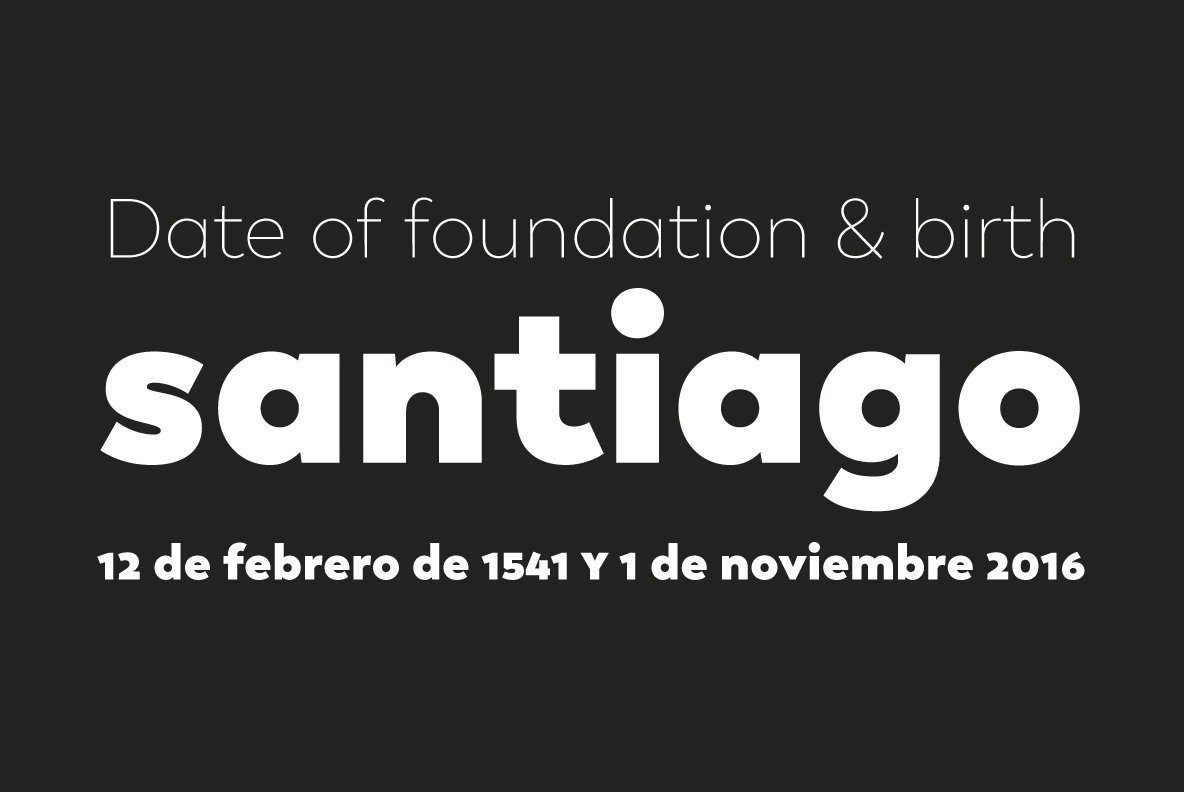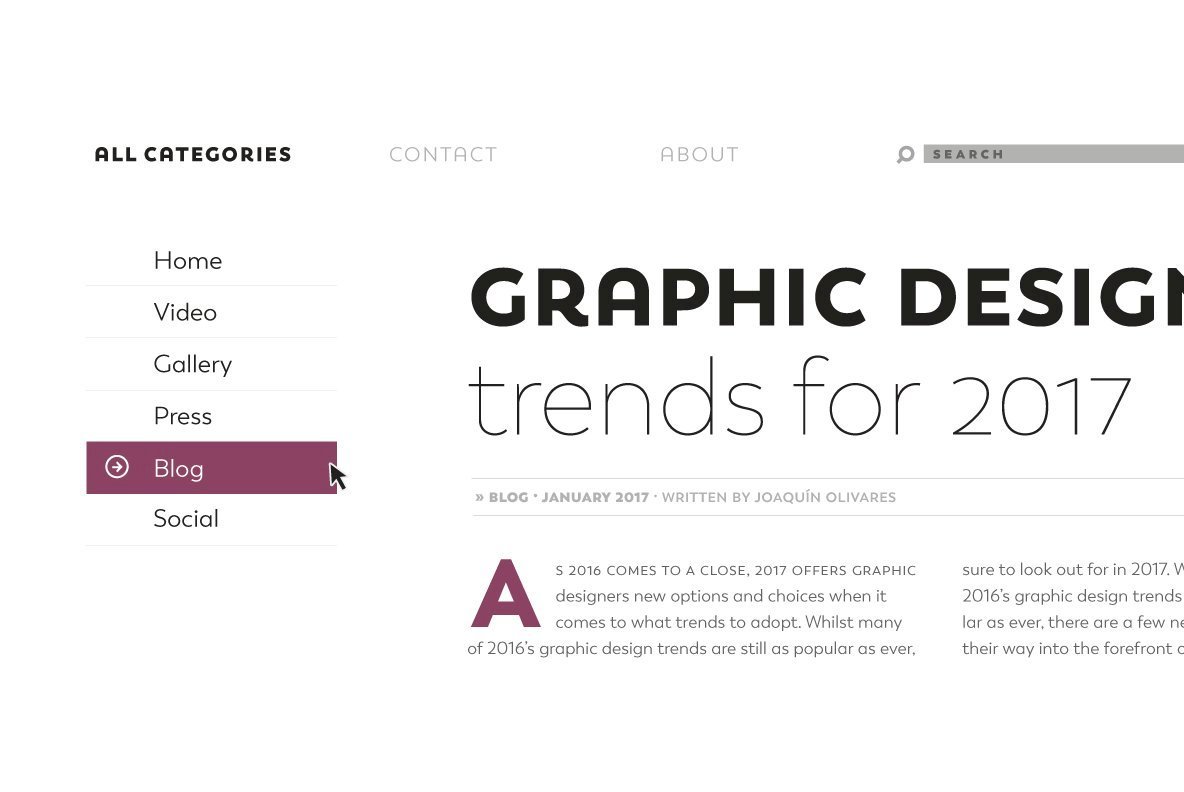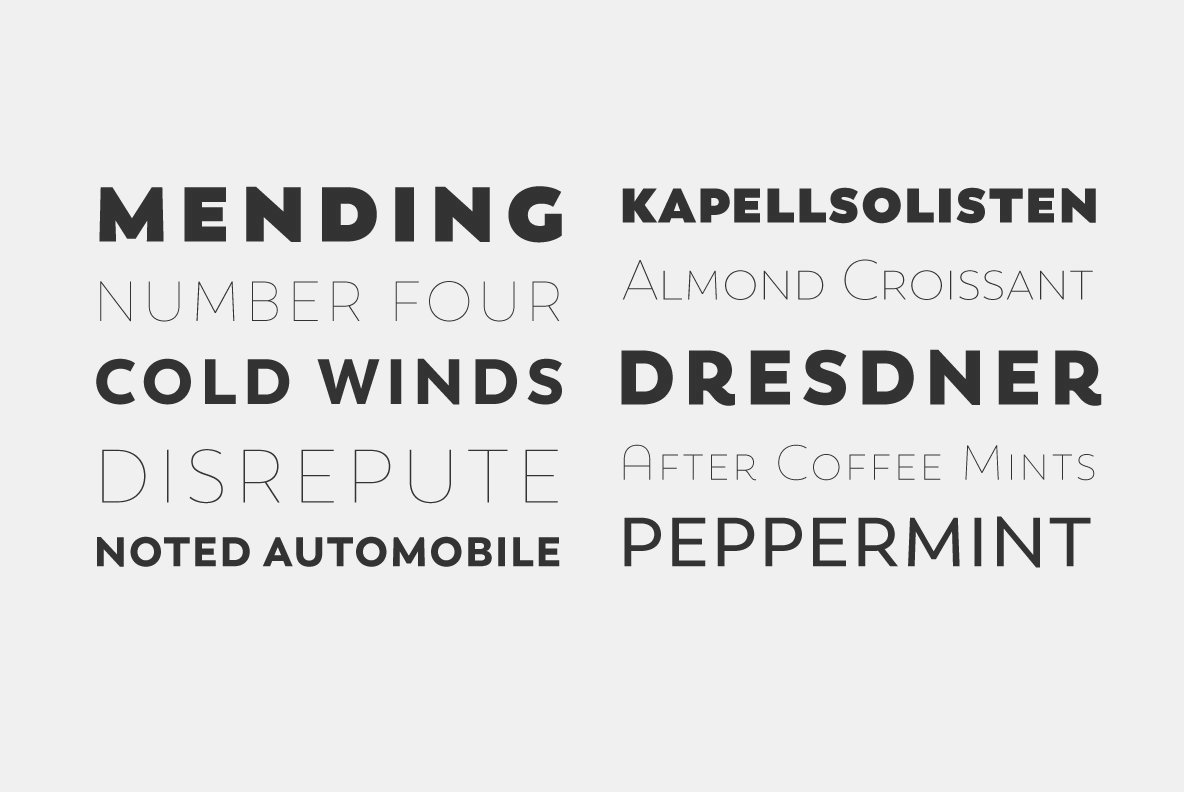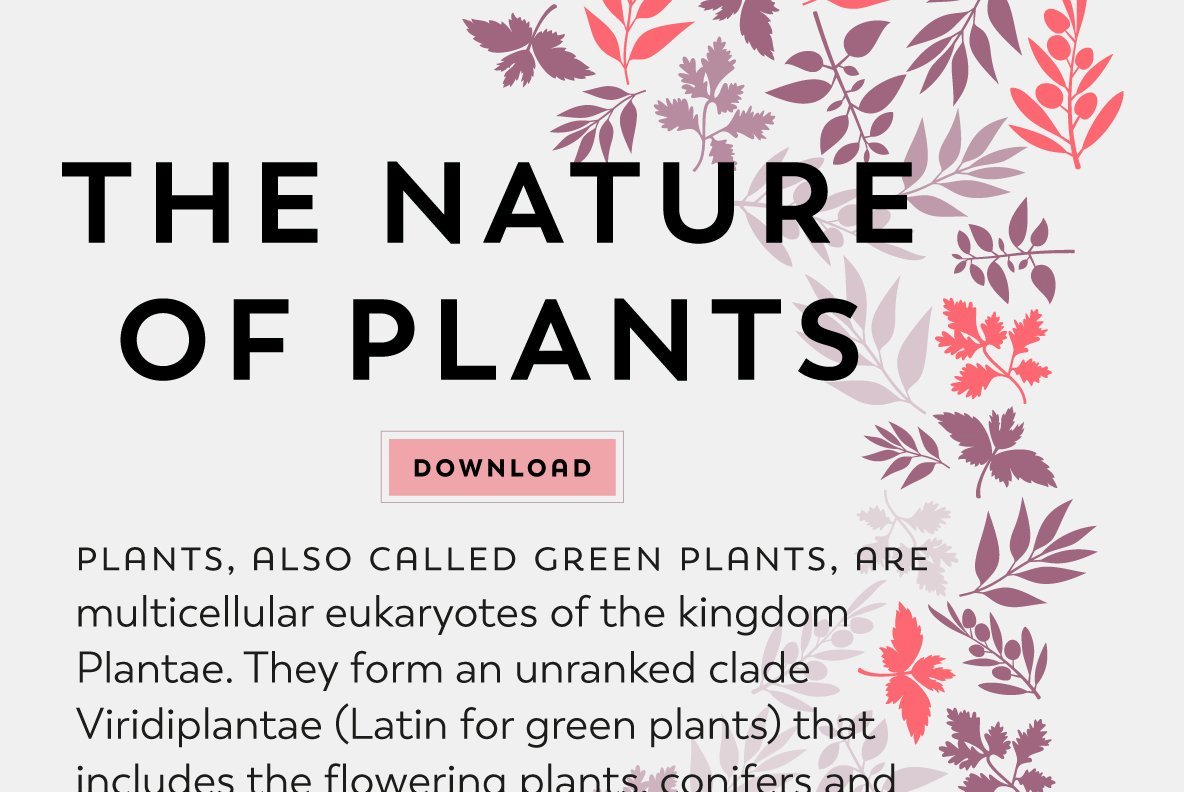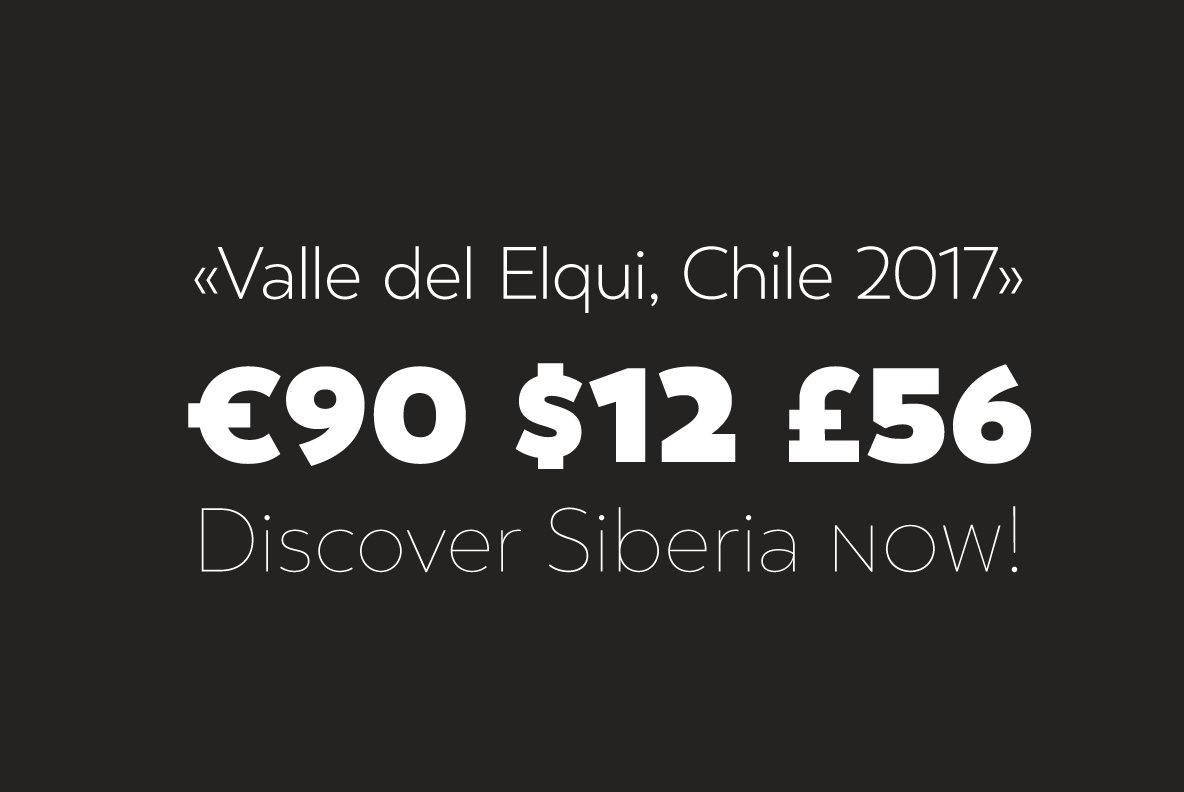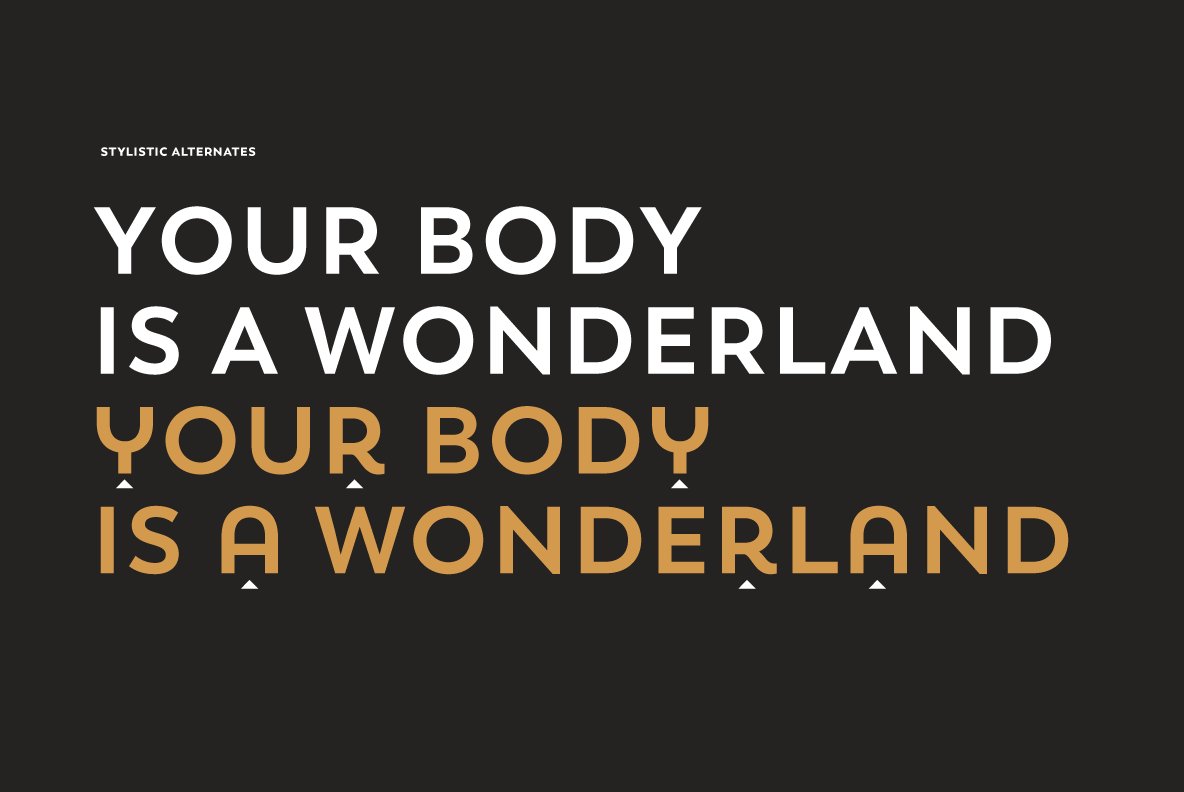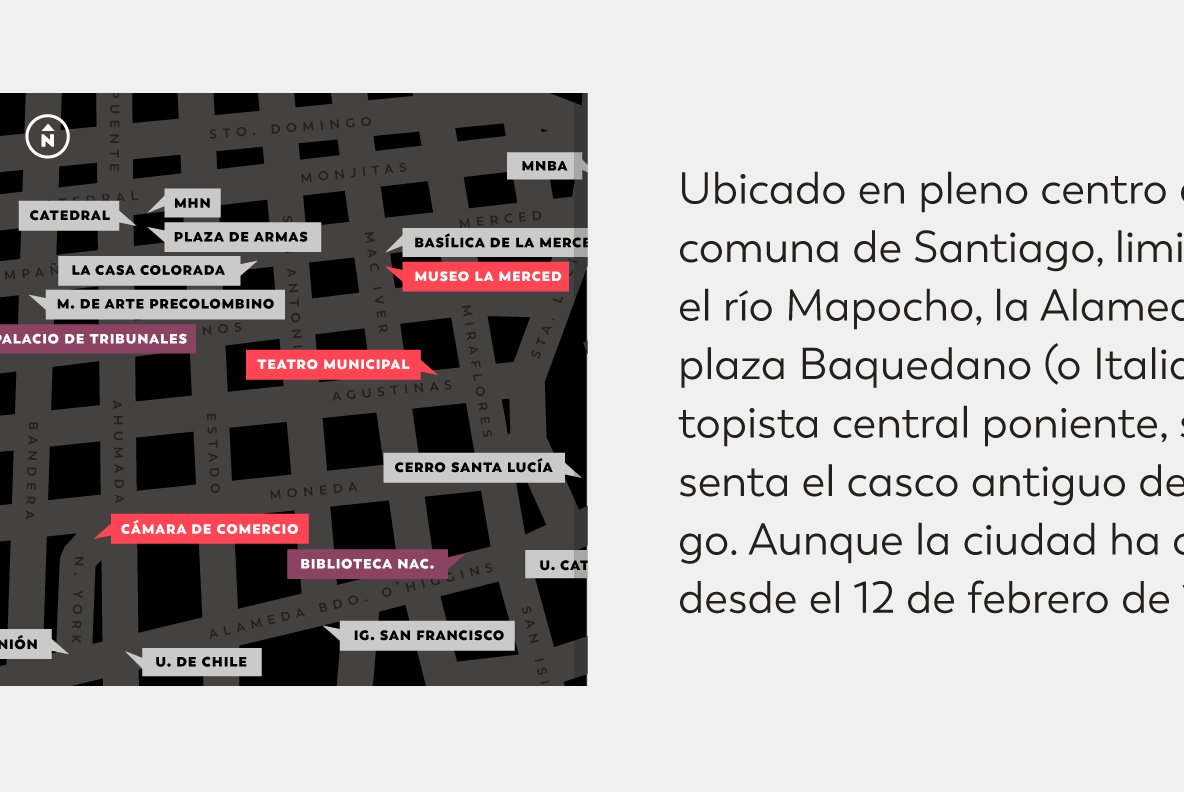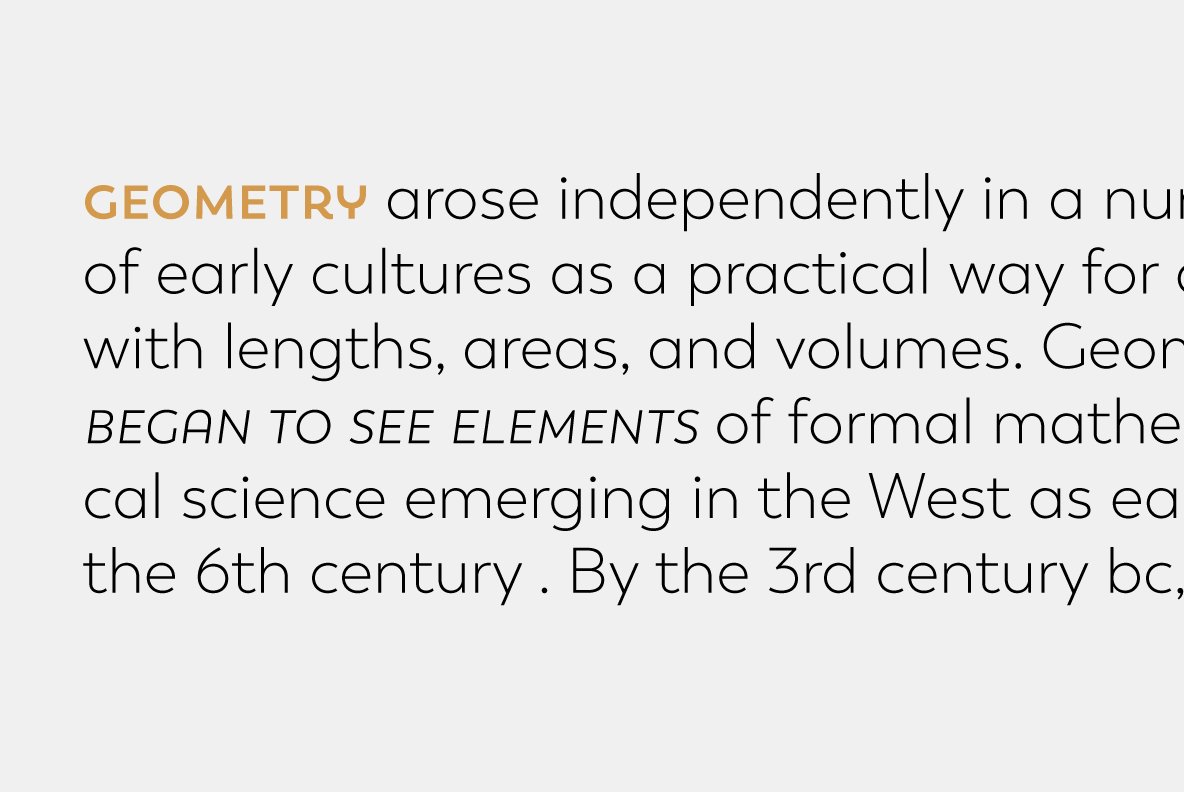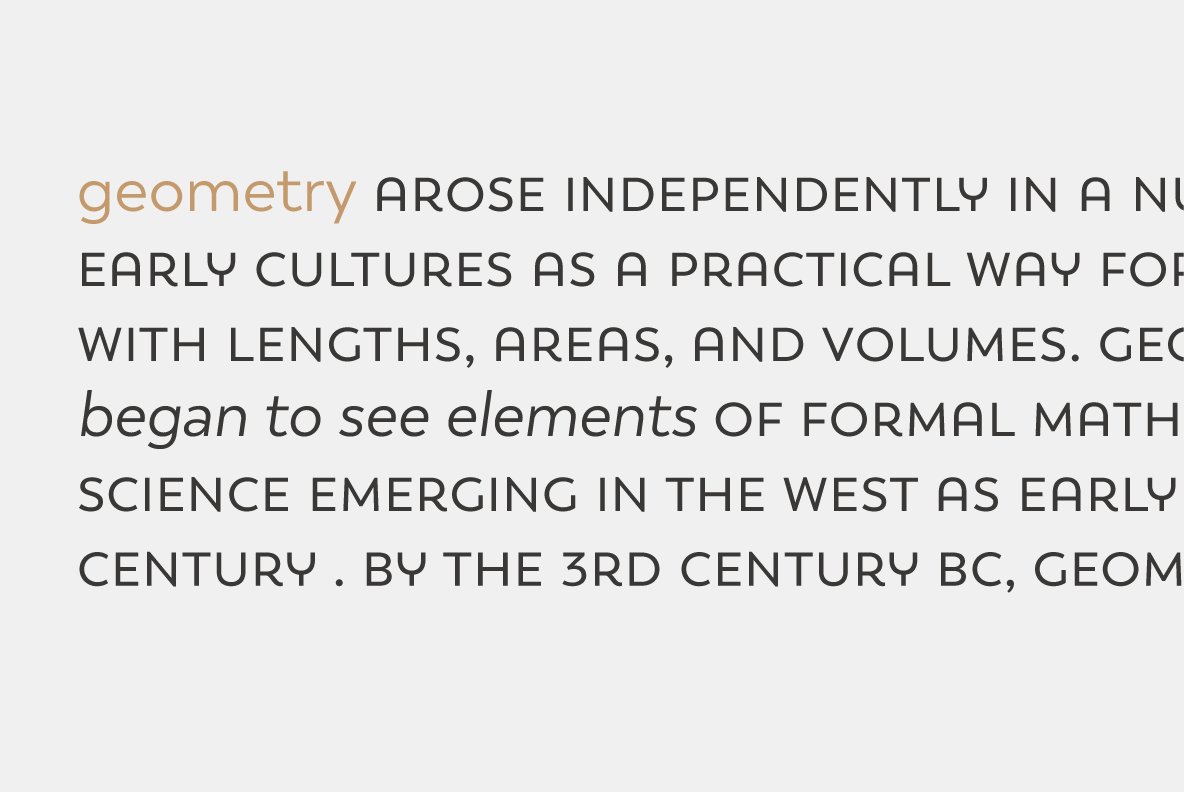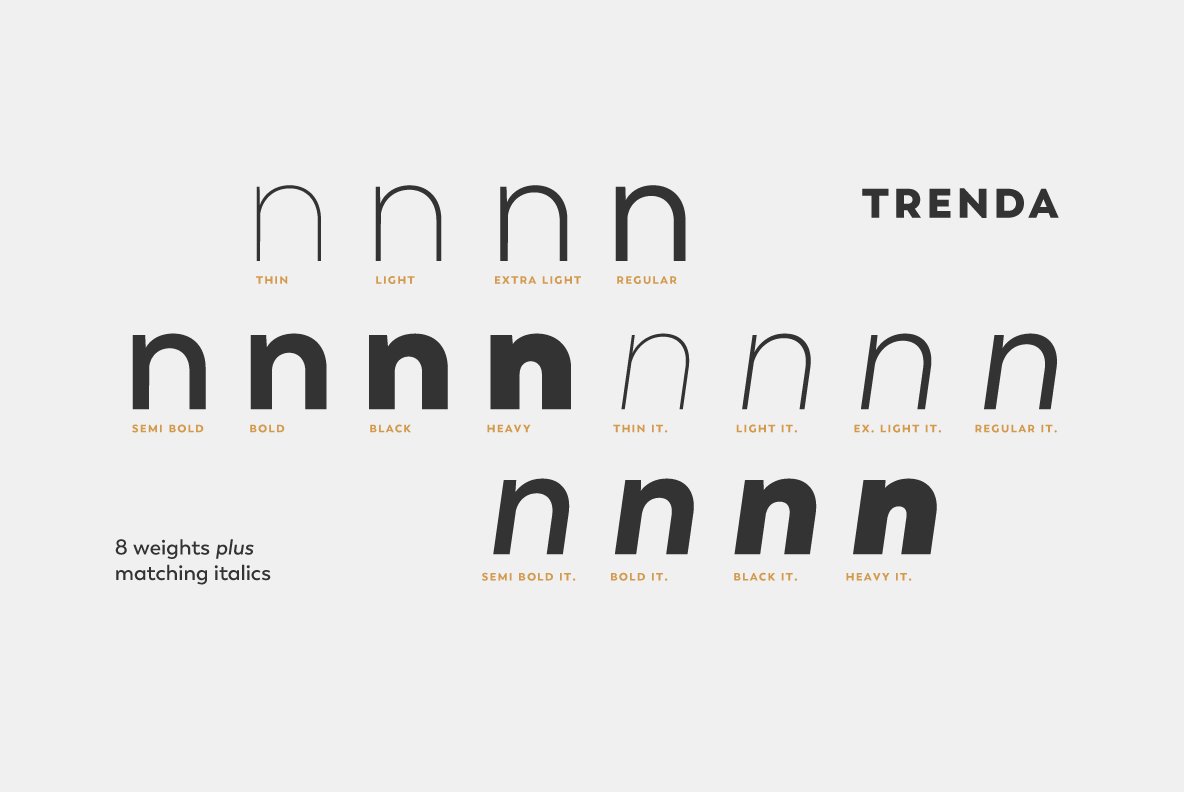
Trenda Font
Designed by Daniel Hernández and Paula Nazal. Corrections and review by Alfonso García and Rodrigo Fuenzalida.
Trenda is a geometric sans-serif typeface based on the uppercase of Trend—a Latinotype font, released in 2013, that was very well received. This new typeface comes with a wider character set that offers a complete family of uppercase and lowercase in different weights.
Trenda is a versatile easy-to-use functional display font with a strong personality, especially its uppercase, which makes the designer’s work easier.
Trenda’s lightest and heaviest variants are ideal for display use while its middle weights work well with short and mid-length texts. This typeface has been designed especially for corporate projects, logotypes and publishing.
Trenda comes in 8 weights, ranging from Thin to Heavy, and includes matching italics as well as small caps and alternates. The family contains a 634-character set that supports 206 different languages.